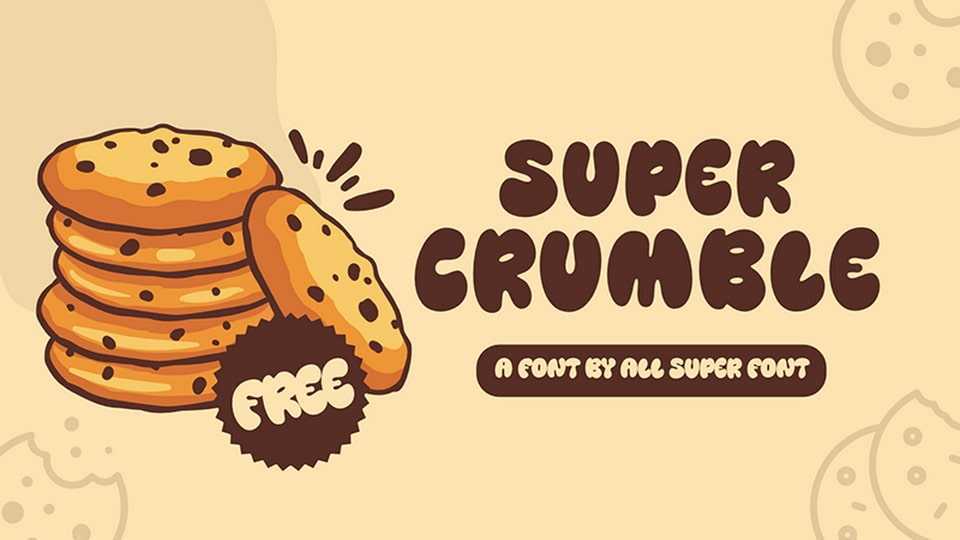
Download Super Crumble font, a chunky, chewy, and oh-so-sweet hand-drawn typeface baked to perfection with its soft rounded shapes and bold, bubbly strokes.